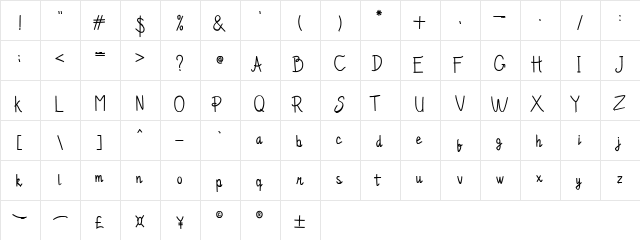
Chandry Regular
Design Context for Chandry Typeface
Chandry flows with the natural rhythm of handwritten lettering, making it ideal for designs that call for warmth and personal expression.
Font Pairing: Combine Chandry with a simple geometric sans for maximum contrast — the tension between flowing curves and clean structure is a classic typographic pairing.
Pro Tip: Pair Chandry with a clean sans-serif for supporting text. The contrast between fluid script and geometric structure creates an elegant typographic hierarchy.